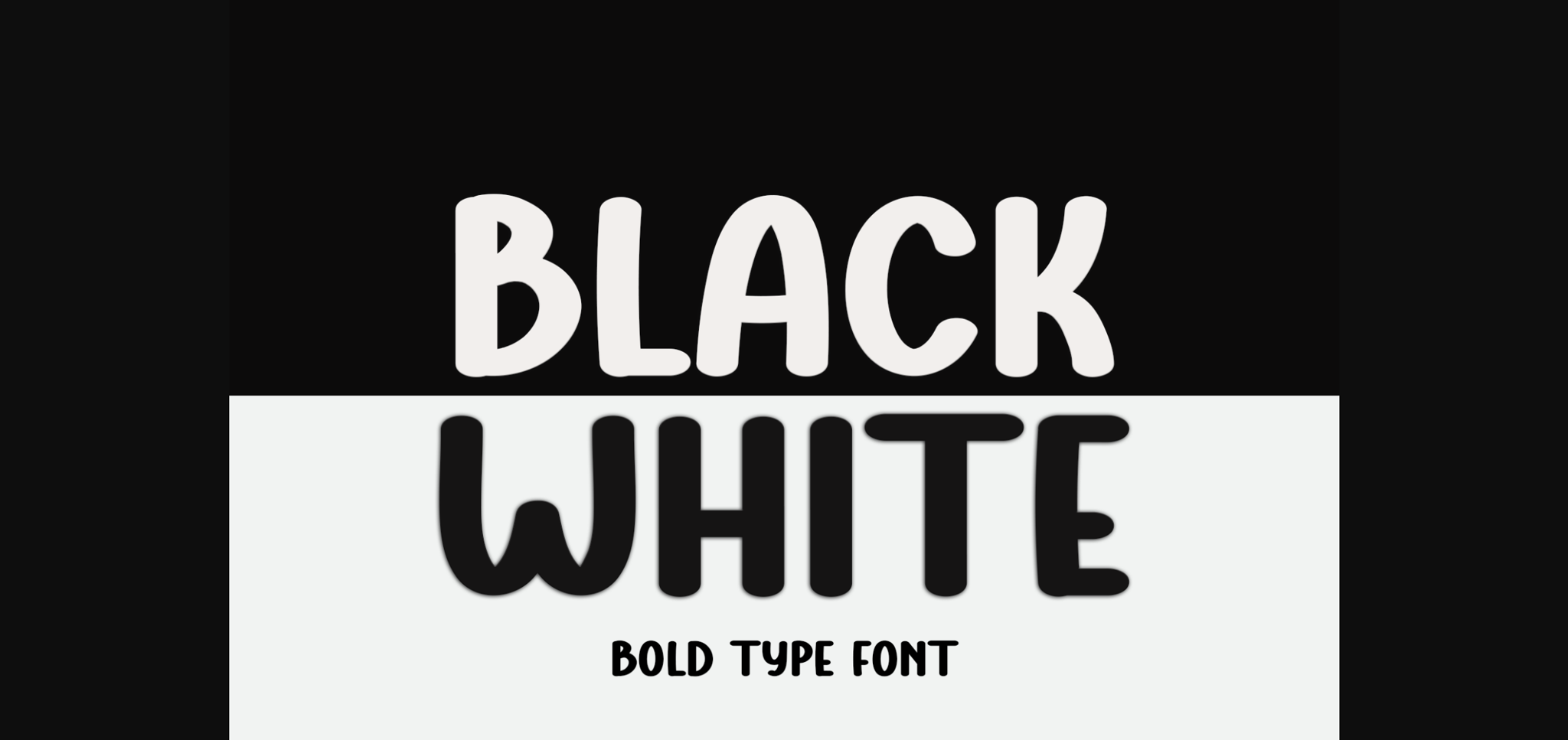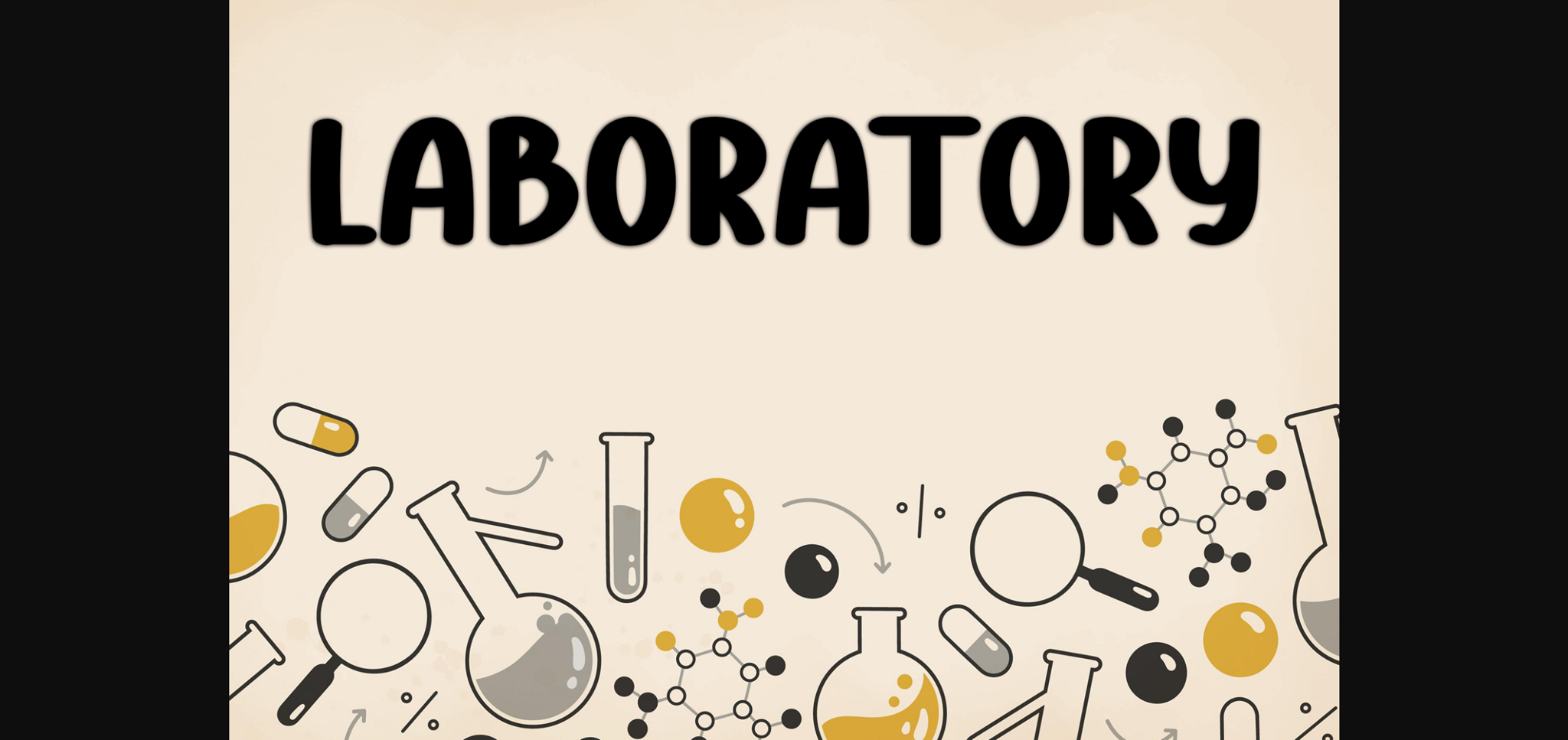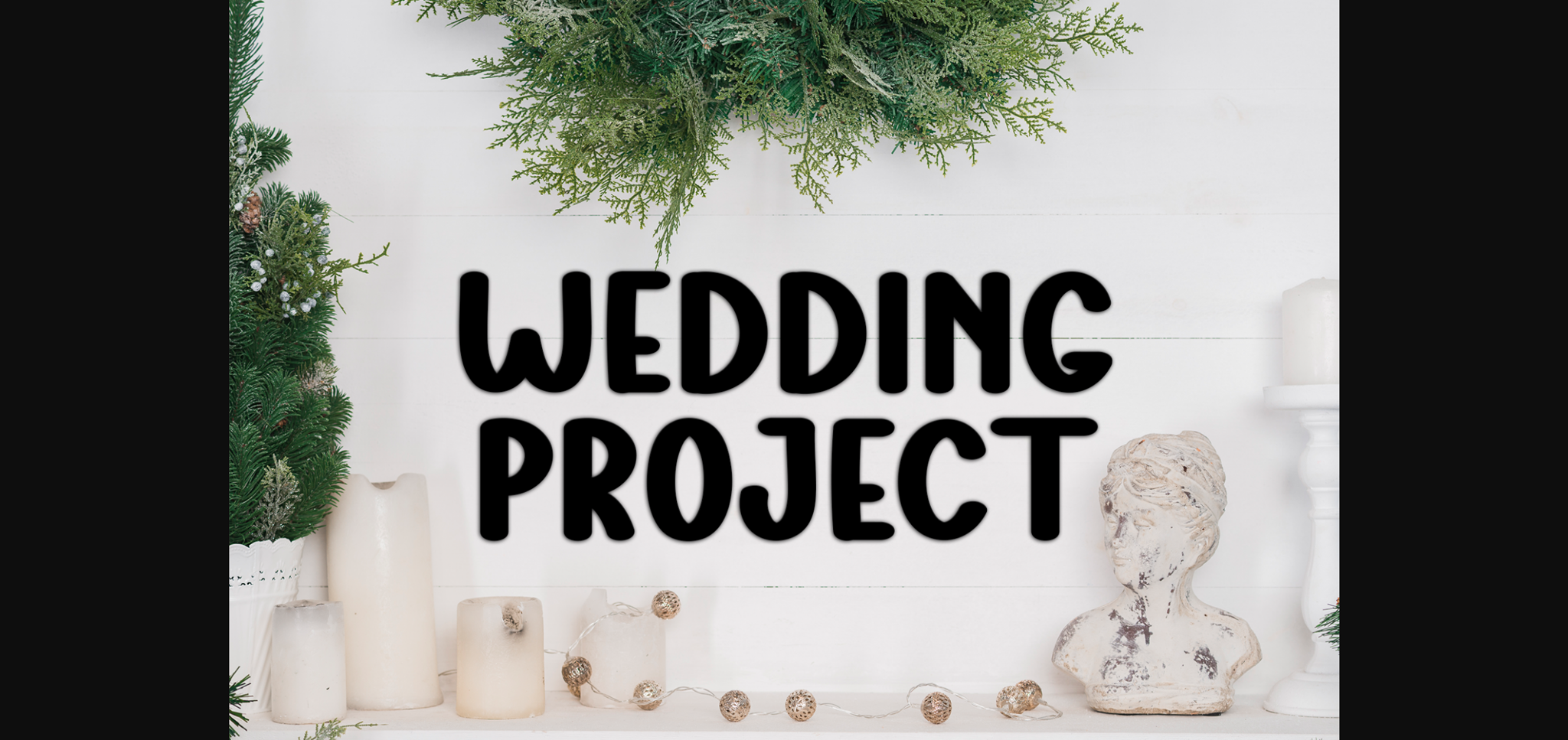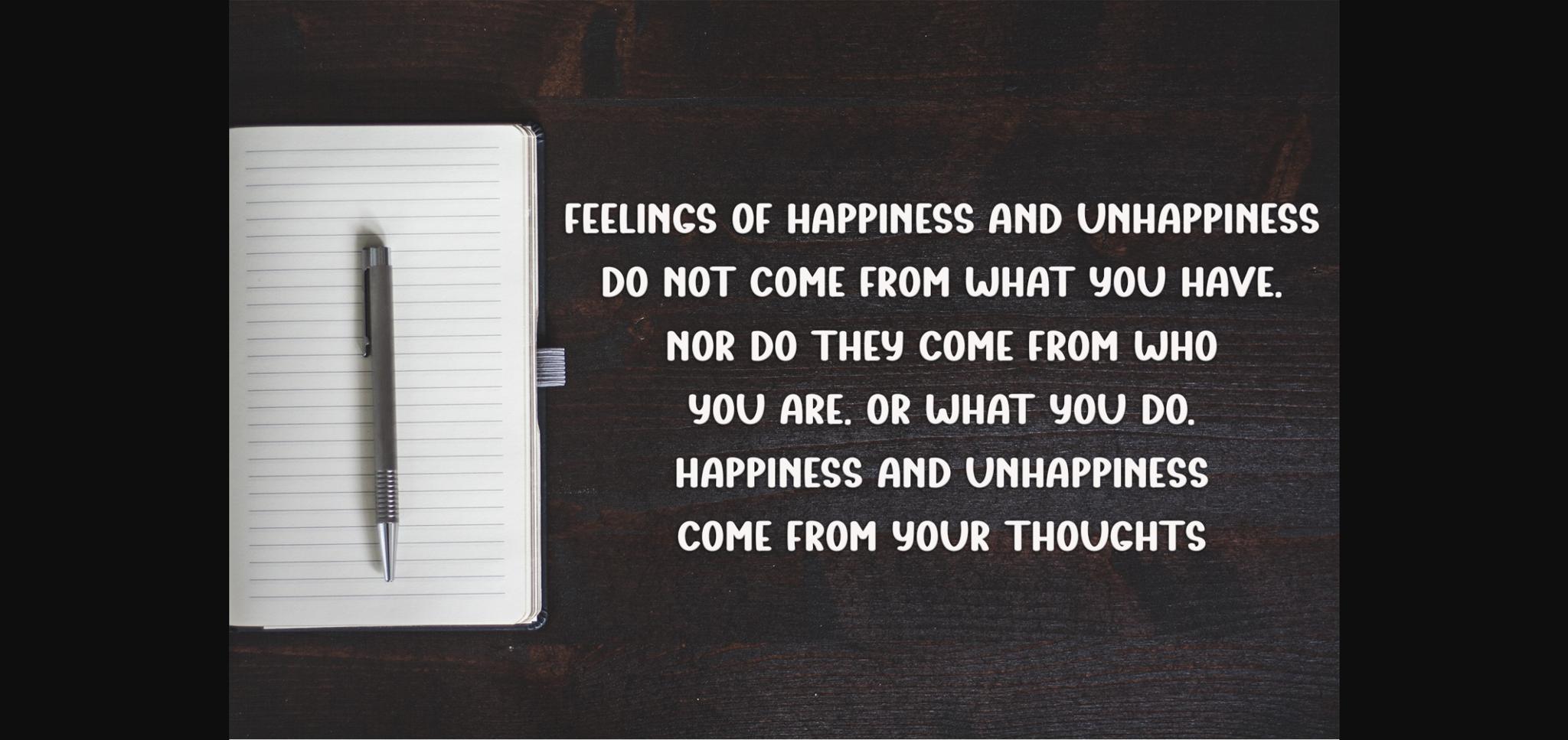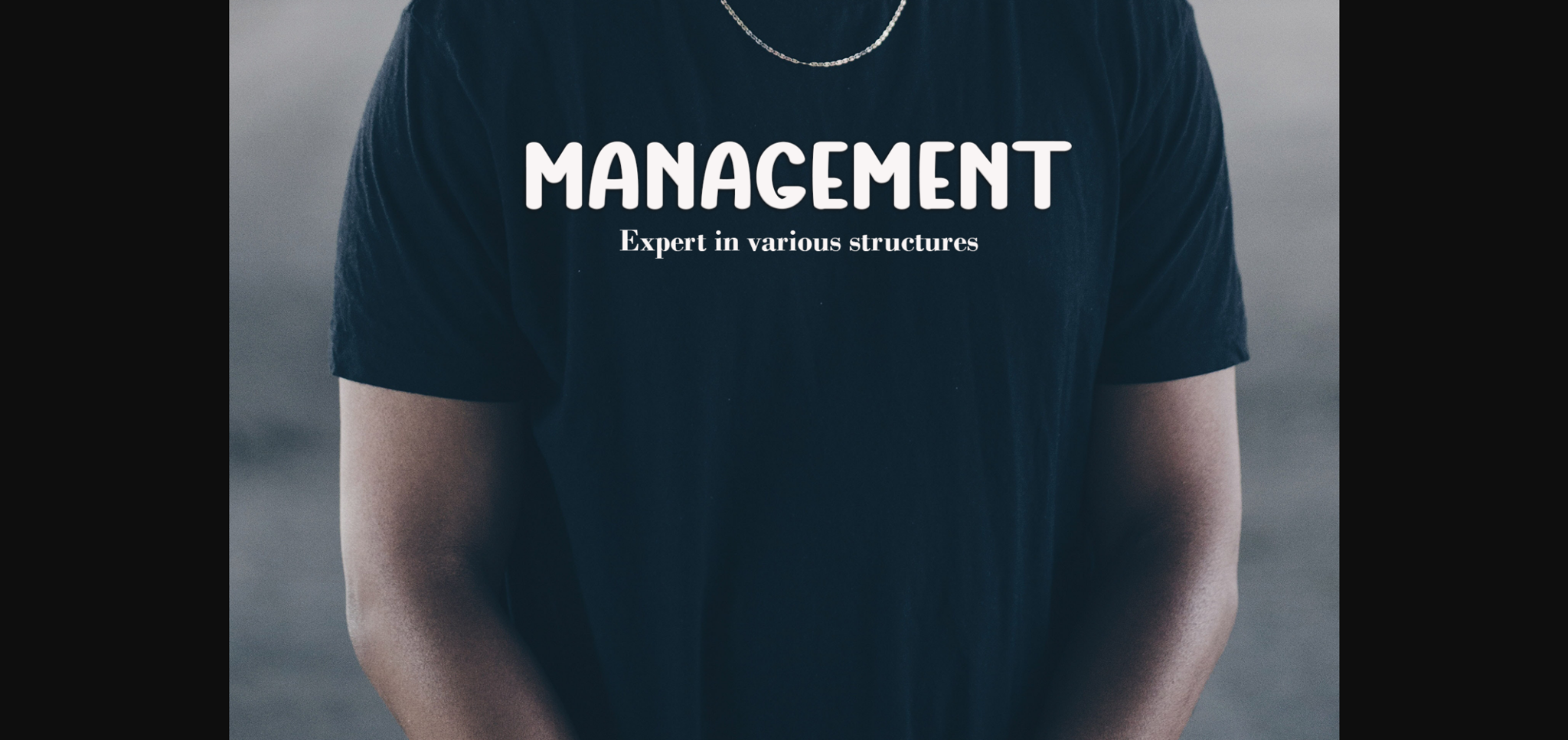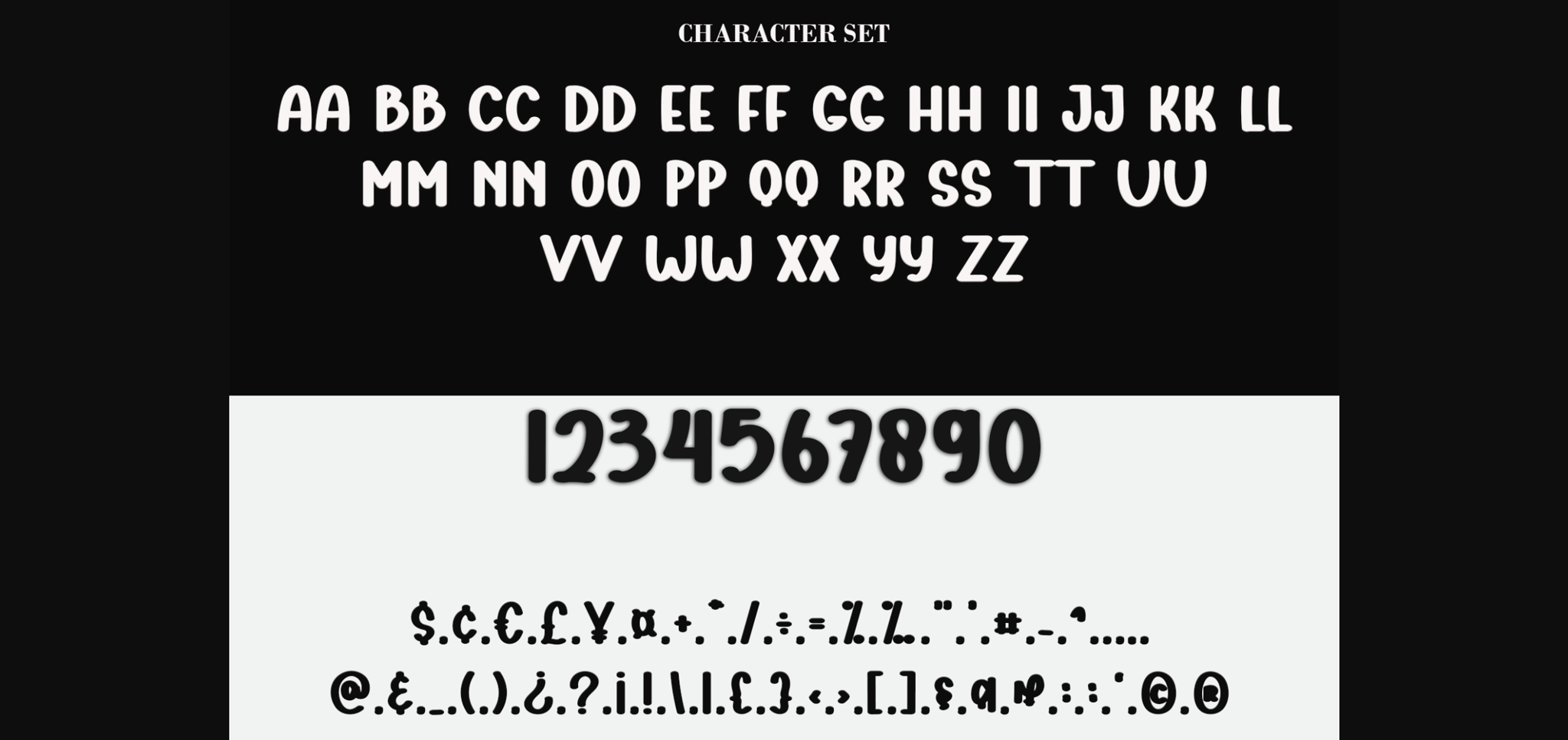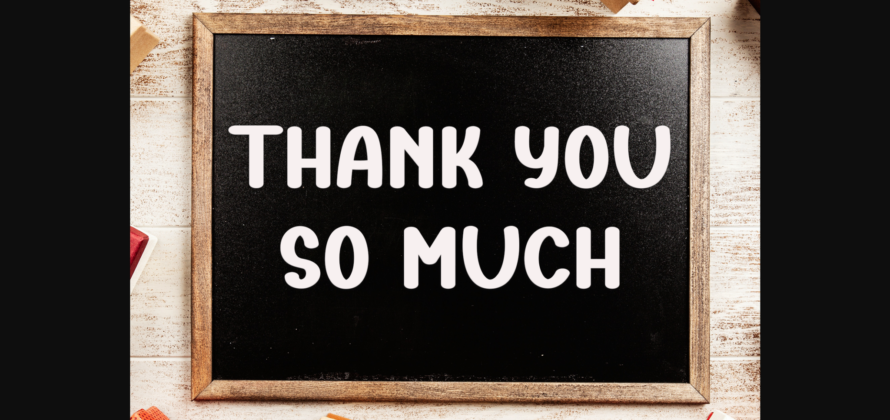
HomeSans Serif FontsBlack White Font Sans Serif Fonts Black White Font FacebookXPinterestWhatsApp 1 of 9 ... Black White Font Poster 2... Black White Font Poster 3... Black White Font Poster 4... Black White Font Poster 5... Black White Font Poster 6... Black White Font Poster 7... Black White Font Poster 8... Black White Font Poster 9... About Black White Font Black White is a sweet and friendly sans-serif font. Its natural and unique style makes it incredibly fitting to a large pool of designs. The only limit is your imagination. DOWNLOAD NOW People also explored Stay Authentic January Font Schulze Werbekraft Font Martina Samantha Font Spring Hontinga Font Quote Font Snowman Font PAG Liberta Wainter Font 389 0 TagsBlack & White FontBlack White Previous articleMinimalist FontNext articleNight Show Font LEAVE A REPLY Cancel reply Comment: Please enter your comment! Name:* Please enter your name here Email:* You have entered an incorrect email address! Please enter your email address here Website: Save my name, email, and website in this browser for the next time I comment. Personal Use Free Color Personal Use Free Read more about this font BD Beans Personal Use Free Read more about this font Letter Clips Personal Use Free Read more about this font December Christmas Personal Use Free Read more about this font BLOG Using Fonts in Digital Marketing: Tips to Strengthen Your Brand Identity In the realm of digital marketing, every visual element plays a crucial role in shaping a brand's identity, and fonts are no exception. The... Where to Buy American Fonts Online in 2024 Elegant Wedding Invitation Fonts – Handwritten & Script Fonts Free Fonts Risk: Why Free Fonts Can Be Dangerous for Designers